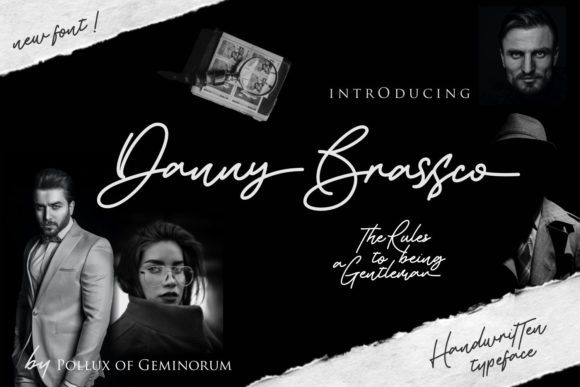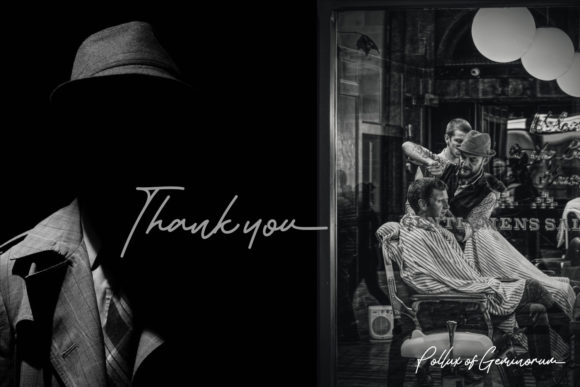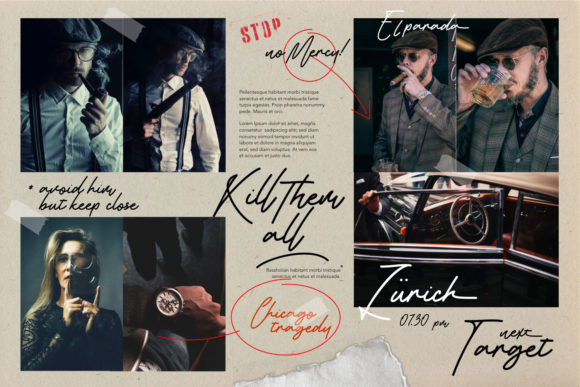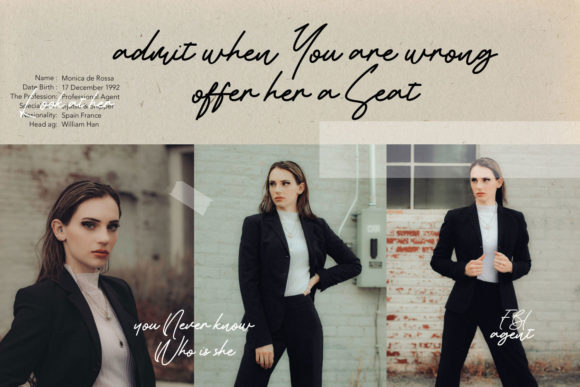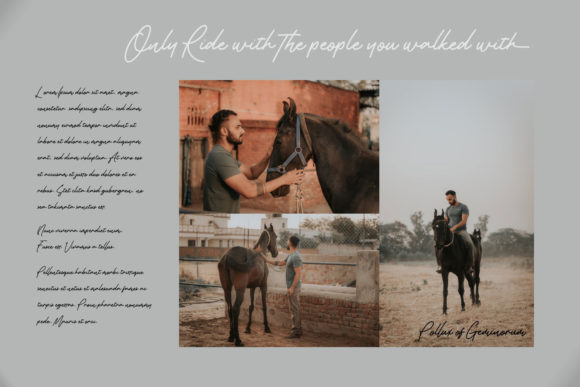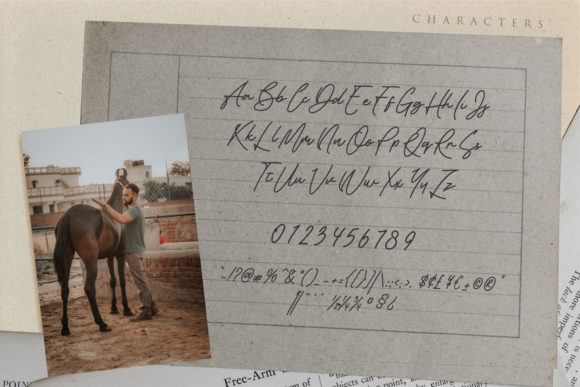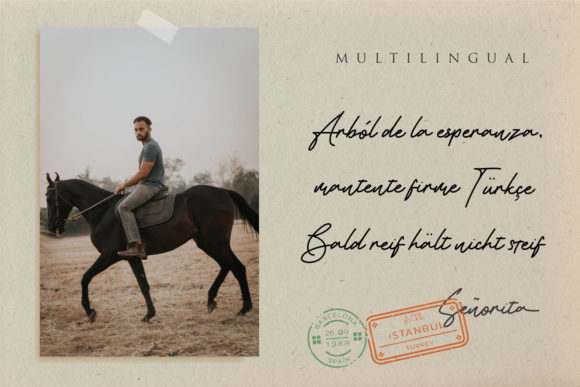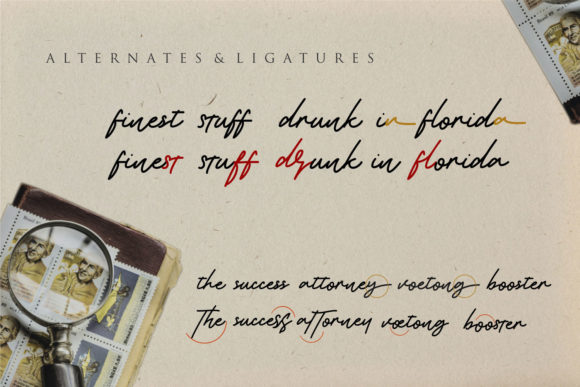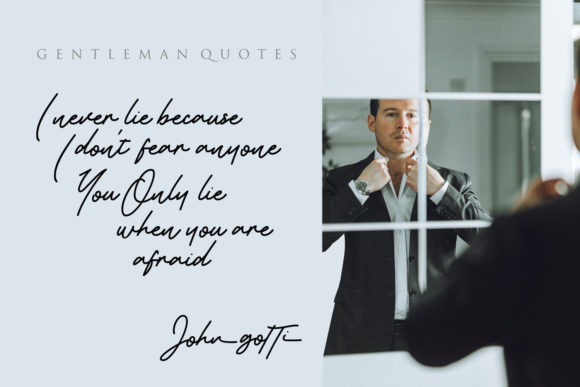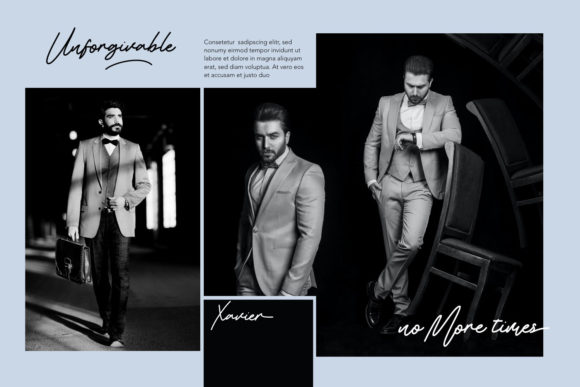
Danny Brassco Font
About Danny Brassco Font
Danny Brassco is a classy handwritten font. Its flexibility and neat style will brighten up each of your designs. Have fun with this cool font and explore its endless variations.